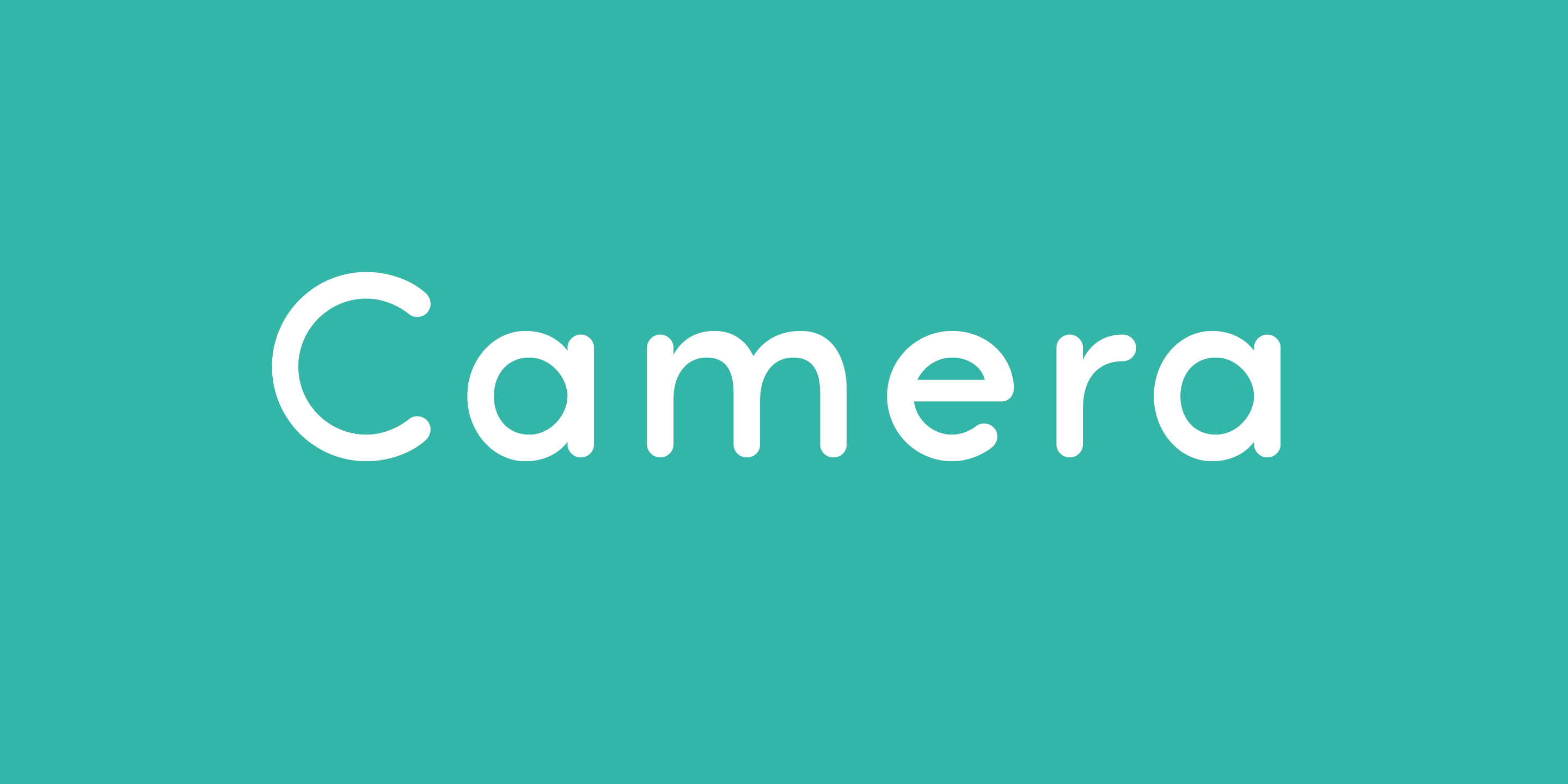
Camera Font is perfect for various applications including photography studio branding, photo equipment packaging, camera store signage, photography portfolio designs, visual arts magazines, filmmaker logos, photo editing software interfaces, photography workshop materials, camera rental services, and creative visual marketing campaigns.
What makes Camera Font so exciting is its remarkable ability to capture the essence of visual storytelling and photographic artistry through carefully crafted typography. This artistic typeface features crisp, precise letterforms with visual clarity and photographic details that evoke the sharp focus of professional cameras and the creative vision of talented photographers. The font's visual character and artistic aesthetic make it ideal for brands that want to convey creativity, precision, and visual excellence to audiences who appreciate photography, visual arts, and creative storytelling.
Camera Font family includes multiple weights and styles: Light, Regular, Medium, Bold, Black, Sharp, Condensed, Extended, and artistically focused Italic variants. Each family member maintains the font's signature visual clarity while offering different levels of visual impact and stylistic flexibility for diverse photography and visual arts applications.
The Camera Font Free Download provides designers with access to a photography-inspired typeface that excels in visual arts and creative markets. Whether you're creating professional photographer identities, designing photography equipment marketing materials, or developing visual storytelling digital experiences, this font delivers the artistic aesthetic needed to resonate with photography enthusiasts and visual artists. Its sharp styling and creative essence make it particularly effective for photography studios, camera manufacturers, and visual arts organizations.
Typography artists will appreciate the precise craftsmanship and visual clarity in Camera Font's construction. The font features sharply defined letterforms with photographic precision, optimized spacing for visual impact, and carefully calibrated proportions that ensure excellent readability while maintaining its artistic character. From photography portfolio layouts to camera equipment branding, this typeface maintains its creativity and visual appeal across all photographic contexts.
For photography web designers, Camera Font provides outstanding performance in visual arts digital environments and photography platforms. The font's technical specifications are optimized for high-resolution displays and visual presentations while preserving the sharp, precise edges that define its photographic character. Its versatility makes it suitable for both static photography content and dynamic visual experiences.
Creative professionals working in photography, visual arts, filmmaking, and creative media will find Camera Font to be an essential tool for projects requiring artistic visual communication. The font's ability to convey creativity, precision, and visual excellence makes it invaluable for brands targeting photography enthusiasts and visual arts demographics.
Design agencies specializing in photography and visual arts brands appreciate Camera Font's versatility in creating memorable artistic identities.